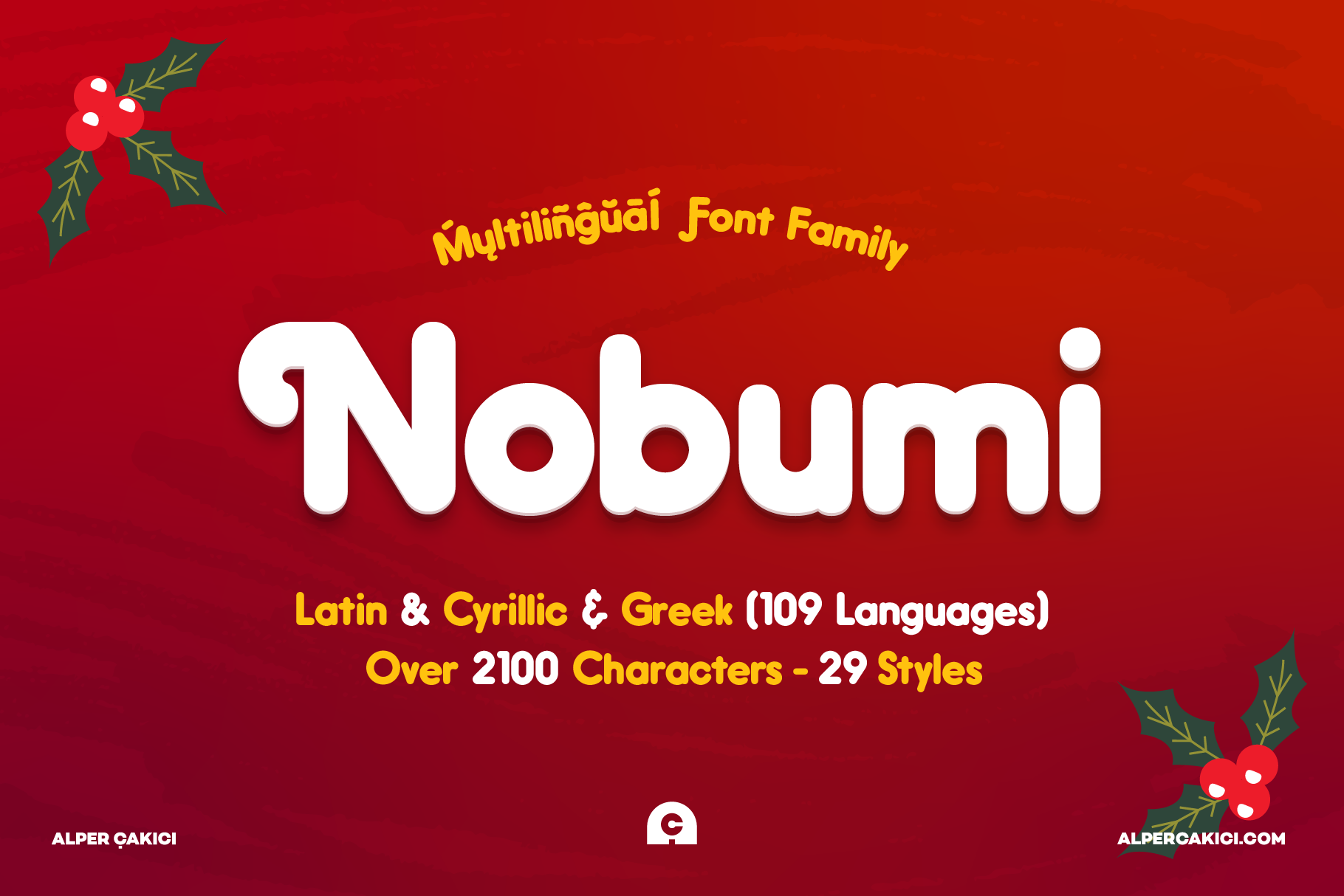
Nobumi Font Family - 29 Fonts
Nobumi is a modern, versatile font with excellent kerning, making it ideal for both digital and print use. It features full support for the Cyrillic language, allowing for seamless multilingual communication. Nobumi's unique design combines classic proportions with a contemporary feel, making it stand out from other same categories fonts. Nobumi including TTF + OTF +WOFF + WOFF2 formats.
Language Support: Afrikaans • Albanian • Asu • Azerbaijani • Bashkir • Basque • Belarusian • Bemba • Bena • Bosnian • Breton • Bulgarian • Catalan • Cebuano • Chechen • Chiga • Chuvash • Colognian • Cornish • Corsican • Croatian • Czech • Danish • Dutch • Embu • English • Erzya • Esperanto • Estonian • Faroese • Filipino • Finnish • French • Friulian • Galician • Ganda • German • Greek • Guarani • Gusii • Hungarian • Icelandic • Ido • Igbo • Inari Sami • Indonesian • Interlingua • Irish • Italian • Javanese • Jju • Jola-Fonyi • Kabuverdianu • Kalaallisut • Kalenjin • Kamba • Kazakh • Kikuyu • Kinyarwanda • Kurdish • Kyrgyz • Latvian • Lithuanian • Lojban • Low German • Lower Sorbian • Luo • Luxembourgish • Luyia • Macedonian • Machame • Makhuwa-Meetto • Makonde • Malagasy • Malay • Maltese • Manx • Māori • Meru • Mohawk • Mongolian • Morisyen • Nigerian Pidgin • North Ndebele • Northern Sami • Northern Sotho • Norwegian Bokmål • Norwegian Nynorsk • Nyanja • Nyankole • Occitan • Oromo • Ossetic • Polish • Portuguese • Quechua • Romanian • Romansh • Rombo • Rundi • Russian • Rwa • Sakha • Samburu • Sango • Sangu • Sardinian • Scottish Gaelic • Sena • Serbian • Shambala • Shona • Sicilian • Slovak • Slovenian • Soga • Somali • South Ndebele • Southern Sotho • Spanish • Sundanese • Swahili • Swati • Swedish • Swiss German • Taita • Tajik • Taroko • Tatar • Teso • Tsonga • Tswana • Turkish • Turkmen • Ukrainian • Upper Sorbian • Vunjo • Walloon • Walser • Welsh • Western Frisian • Wolof • Xhosa • Zulu